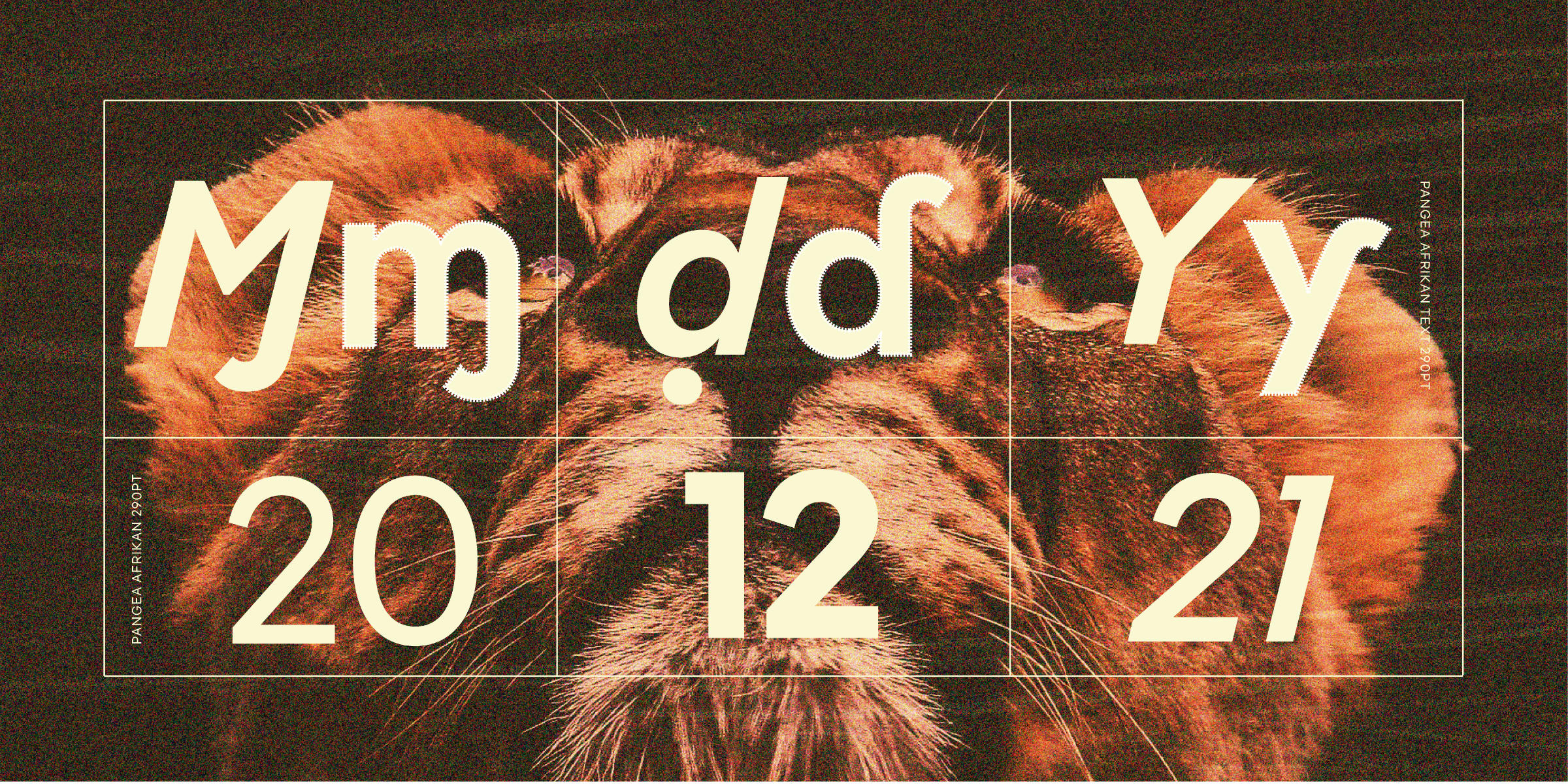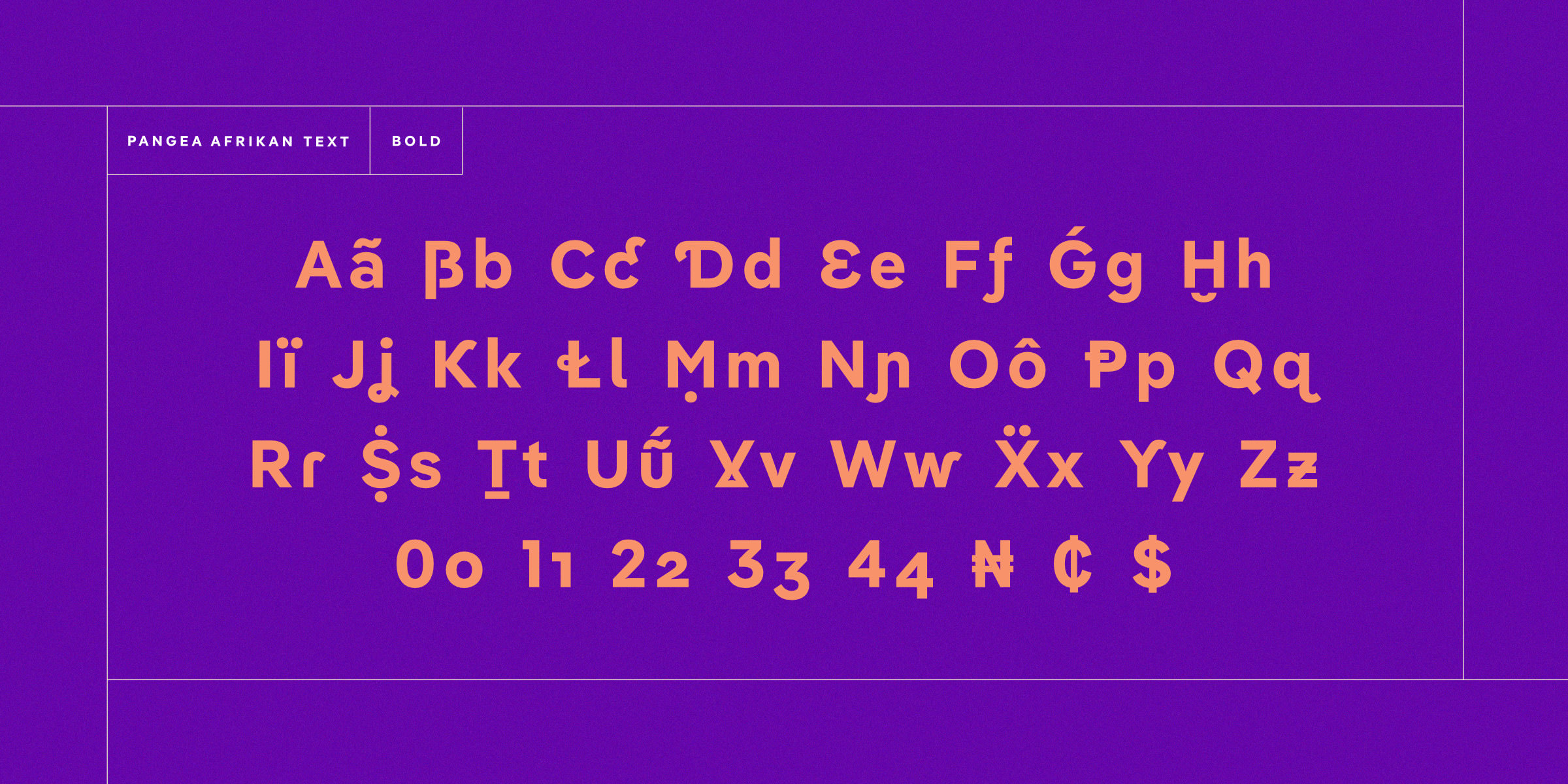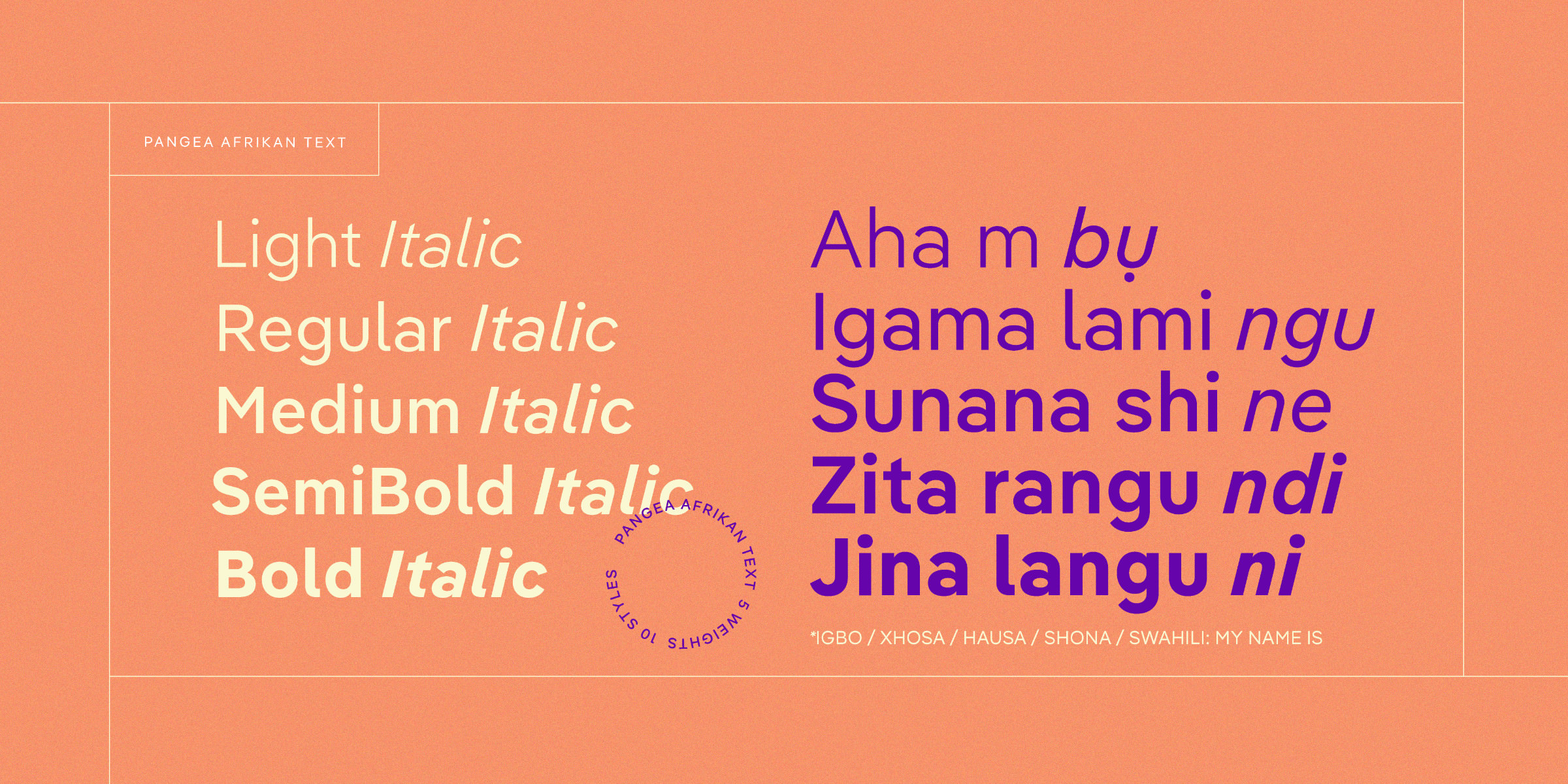
| FRESH FREE FONTS FOR 430 MILLION: HELLO PANGEA AFRIKAN |
As another rather wild and topsy-turvy year comes to a close, we are sharing some good news in this month’s newsletter. On its mission to expand typographic diversity across the globe, our popular geometric sans’ next stop is Africa. Say hello to Pangea Afrikan which speaks 360 languages. What’s more they’re included in the Standard License for free. |
| | Crossing continents and connecting culturesIt’s only been a year and a half since Pangea was first released but thanks to Designer Christoph Koeberlin’s unerring determination to make it an inclusive and multilingual typeface, the latest addition, Pangea Afrikan, speaks 360 languages. The fonts are permanently free of charge and included in the Standard License! Christoph’s continuous language extensions challenge Western conventions, as more often than not successful typefaces usually only represent the alphabets of Europe and America. Pangea Afrikan marks an important milestone in this respect: it adds Latin African to its language toolbox. Providing support for languages including Hausa, Yoruba, Igbo, Lingala, Mende, and Umbundu, as well as some indigenous North American languages such as Lushootseed and Navajo–the languages of over 430 million people. | |